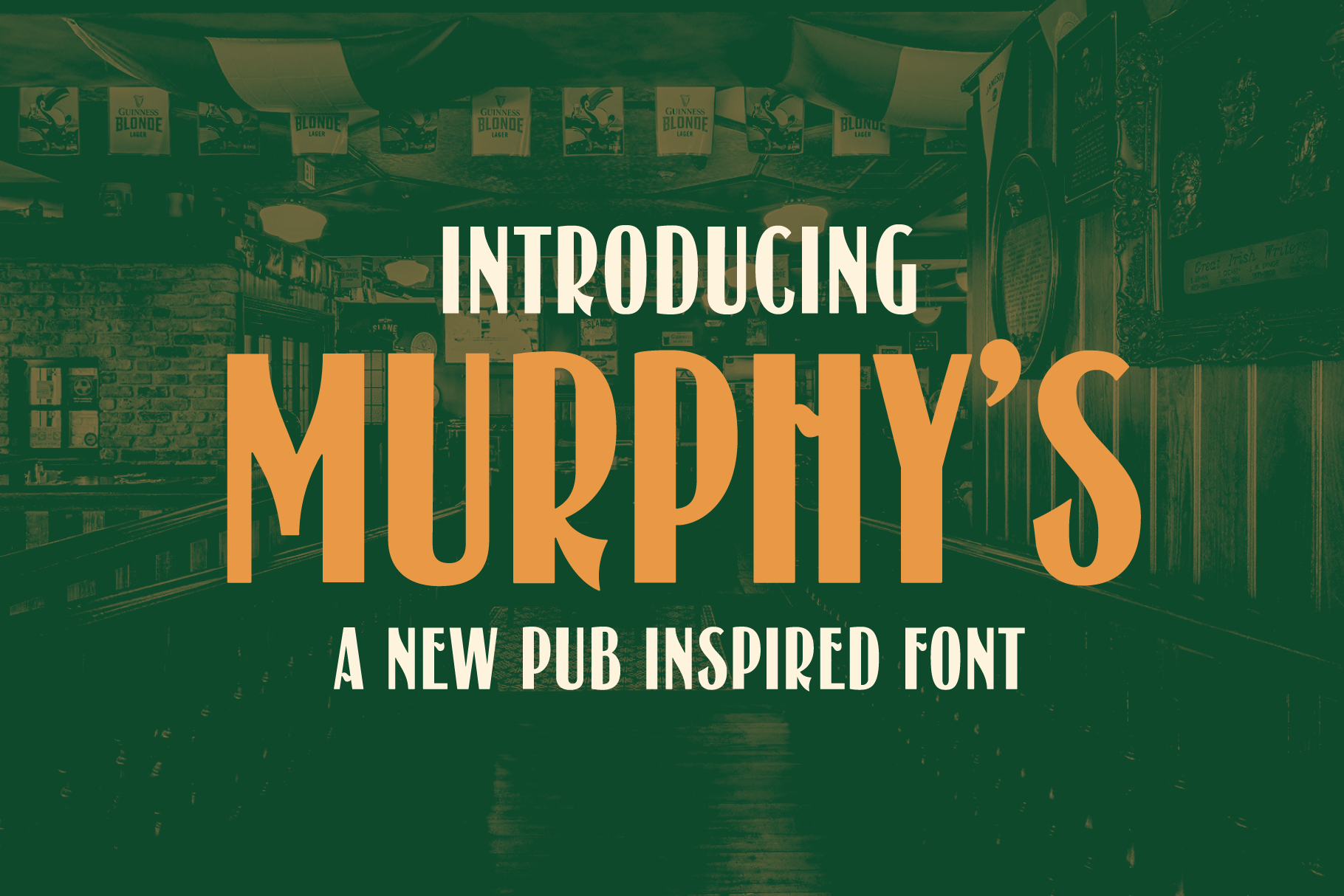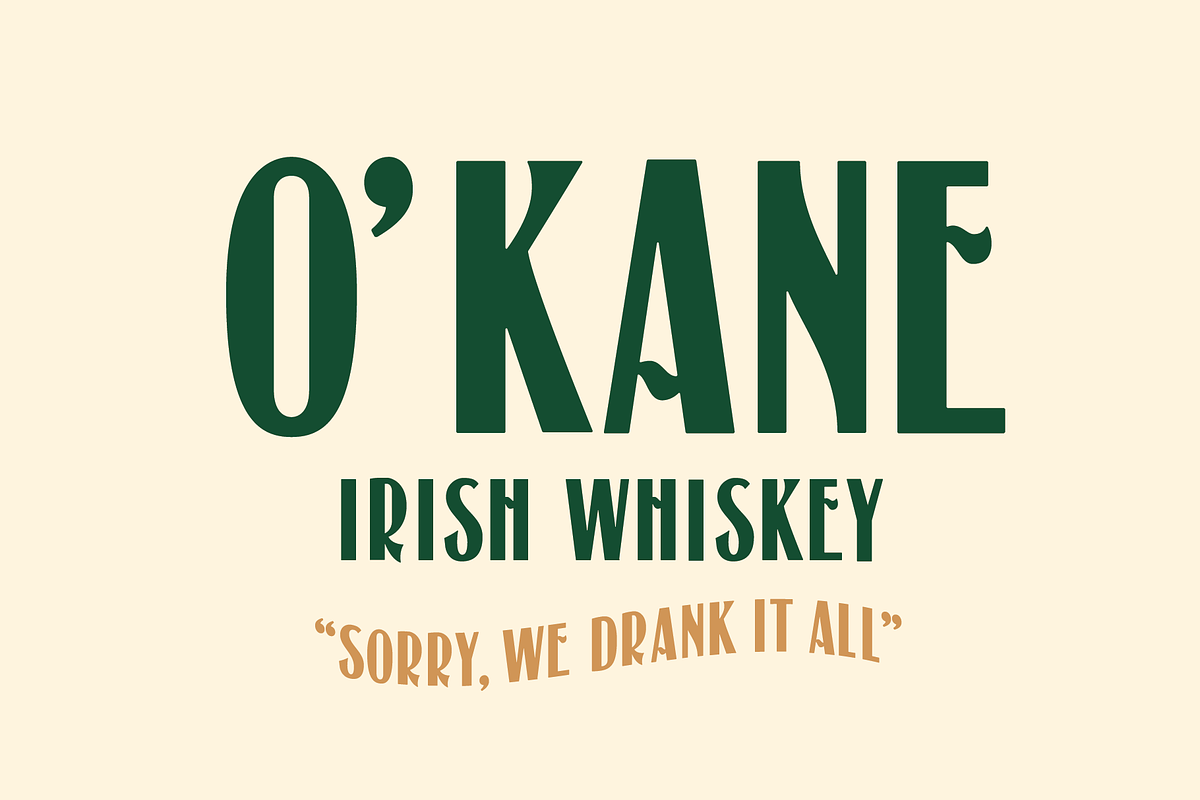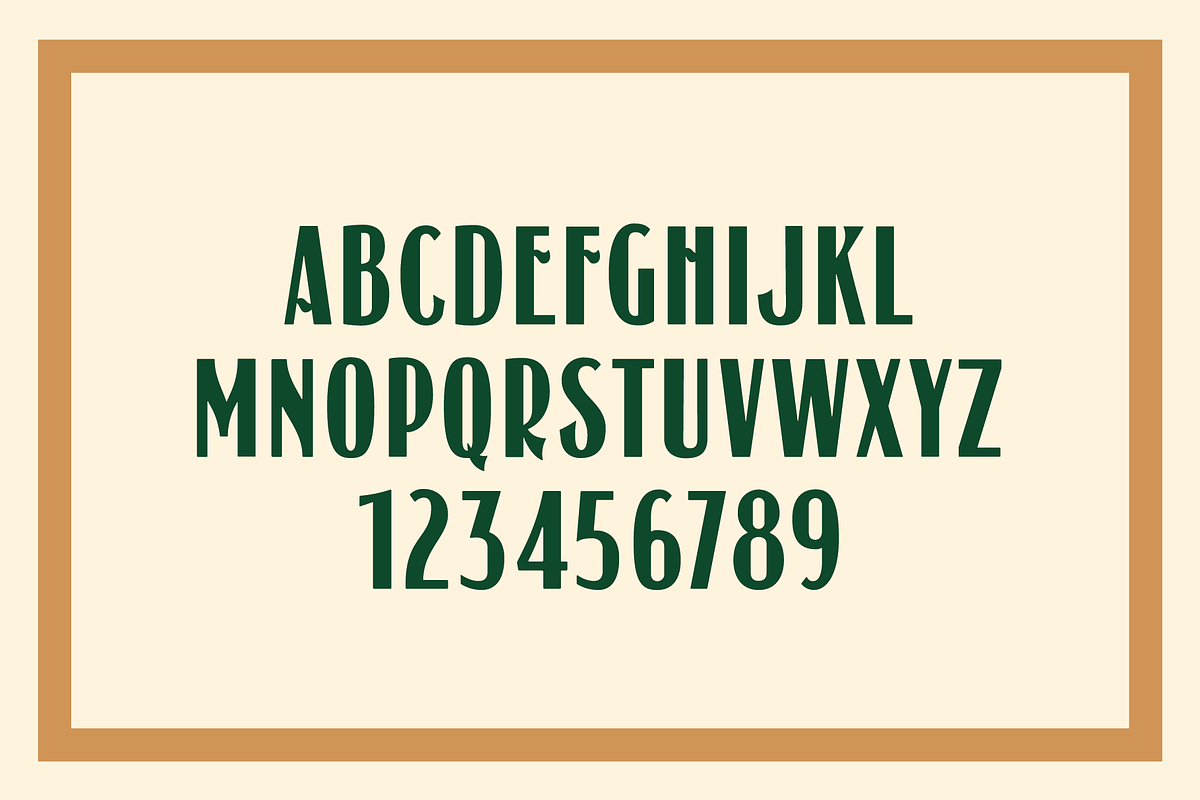
Murphy's Victorian Irish Pub Font
Murphy's is a display font that is perfect for a victorian or vintage feel. It was inspired by some lettering found on an old Irish Whiskey ad, and was developed as a typeface that could work for an Irish pub without being too Irish. The font includes all recommended latin uppercase characters, numerals and punctuation.